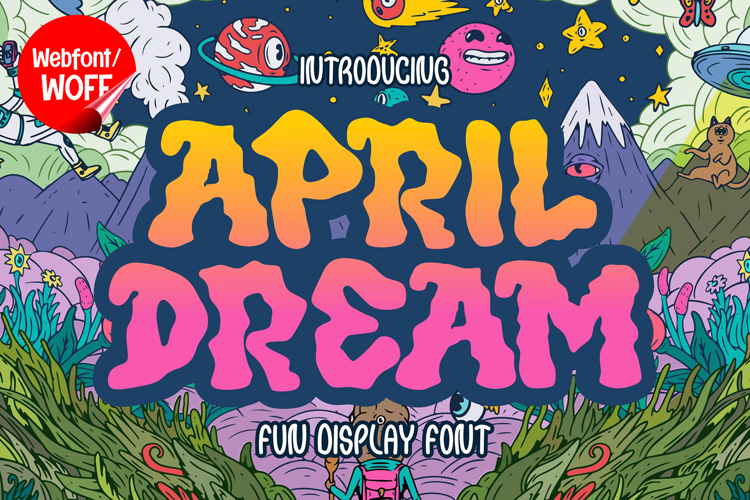
April Dream | Retro Cute Display Webfont for Playful Website
April Dream is a retro cute display webfont designed to bring a soft, nostalgic, and cheerful atmosphere into modern website design. Inspired by vintage aesthetics with a playful twist, this font features rounded shapes and friendly character forms that create a warm and inviting visual style. It is an excellent choice for projects that aim to deliver a fun, lighthearted, and memorable user experience.
April Dream includes a complete set of uppercase characters designed with a retro-inspired structure. The bold yet soft shapes reflect a vintage feel while maintaining clarity for digital use. These letterforms are ideal for headlines, banners, hero sections, and featured content where a playful and eye-catching style is needed. The combination of retro charm and cute design helps create a strong visual identity.
In addition to letters, the font includes numbers and punctuation, allowing flexible usage across various parts of a website. It works well for promotional text, product highlights, pricing displays, and call-to-action sections. Each character maintains a consistent retro-cute style, ensuring a cohesive and unified look throughout the layout.
With multilingual support, April Dream includes a wide range of accented characters, making it suitable for international websites and global audiences. This allows content to be displayed clearly across different languages while preserving the nostalgic and playful aesthetic.
The retro cute display style of April Dream makes it especially suitable for lifestyle websites, children’s brands, creative portfolios, product showcases, and promotional campaigns. Its friendly and approachable design adds personality and charm, helping websites stand out in a warm and engaging way. The vintage influence also brings a sense of familiarity and timeless appeal.
Despite its playful and decorative appearance, April Dream is designed with readability in mind. The spacing and proportions are carefully balanced to ensure clarity, particularly in display sizes. This makes it effective for impactful headings and short content elements where both style and usability are important.
April Dream is a webfont that combines retro inspiration with cute design and modern digital performance. Its rounded forms, cheerful character, and nostalgic style create a distinctive typographic presence that enhances website design. For projects that require a fun, charming, and visually appealing font, April Dream offers a reliable and engaging solution.